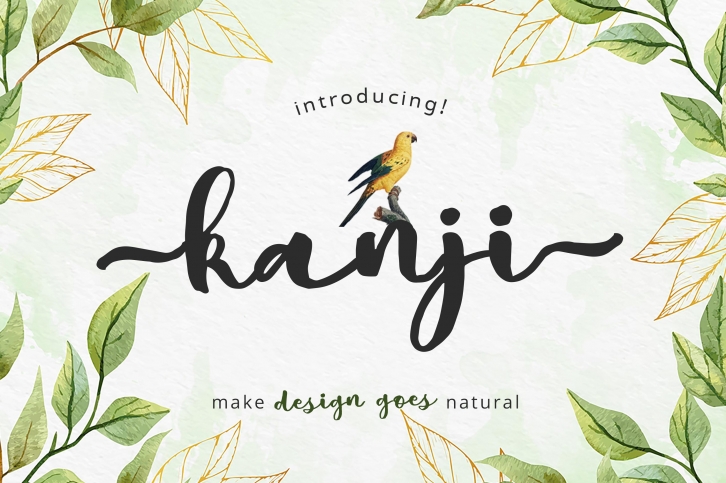
Kanji Brush is a gorgeous font that was realeased on February 10, 2022. The font can be used in many style contexts and design environments. Perfect for invitations, magazines, websites, logos, and more! It was designed by Apon & Stipline Co and the file size is 21.62 MB. Thanks for checking out this font!